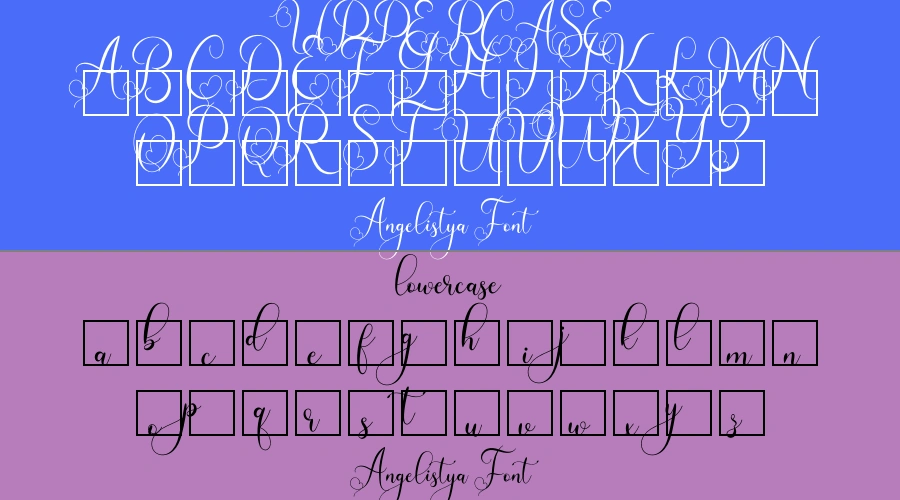
About Angelistya Font
Angelistya Font embodies typographic excellence through its masterful combination of harmonious shapes and professional finish. Created for scientific journals, this typeface delivers exceptional accuracy and design innovation across all applications. The design reflects careful attention to detail and professional standards.
Advanced capabilities include distinctive playful elements and versatile period-specific forms, giving designers creative control. When used in warning labels, Angelistya Font exhibits remarkable file optimization. The harmonious balance between ascender height and user perception sets this typeface apart.